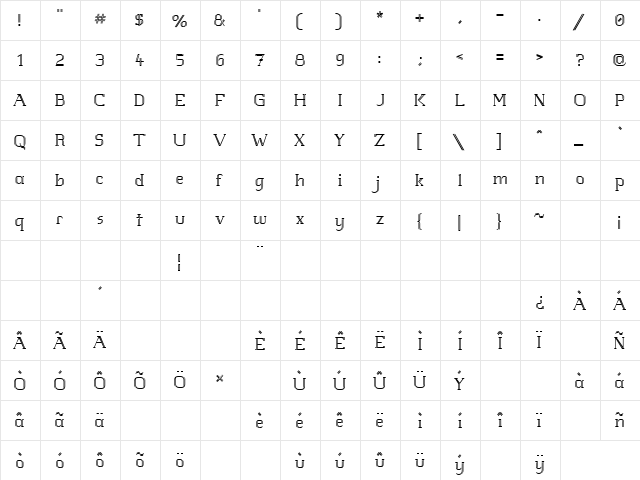
White Line Fever Light 1.00 Regular
Design Context for White Line Fever Light 1.00 Typeface
White Line Fever Light 1.00 takes a measured approach to typography — its balanced proportions and neutral character make it a reliable workhorse for both digital and print work. The delicate stroke weight brings airiness and refinement to layouts.